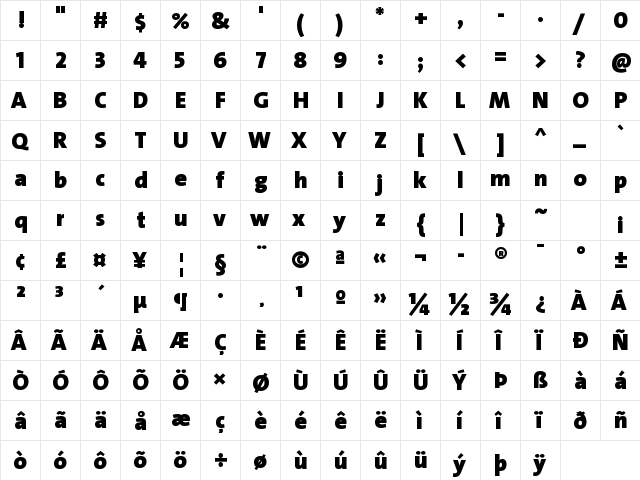
Bahij TheSansArabic Black Regular
| Foundry | Tiro Typeworks for Adobe Systems Incorporated. |
| Designer | Tim Holloway (Arabic) and Robert Slimbach (Latin) |
Design Context for Bahij TheSansArabic Black Typeface
Bahij TheSansArabic Black is a composed and adaptable typeface that performs quietly and consistently across a wide range of design contexts.